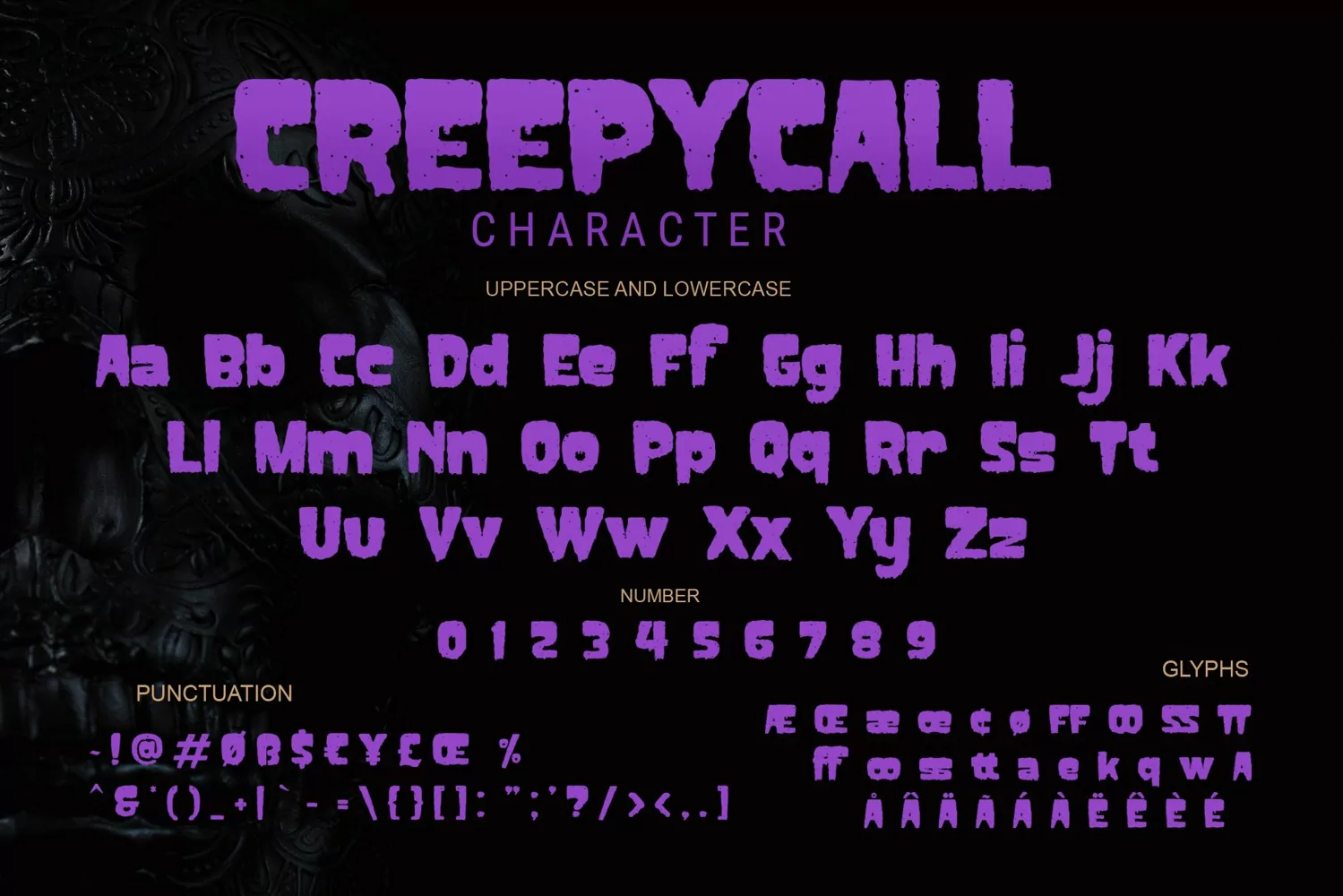
Creepycall
**Creepycall Font**
This pair was inspired by the vintage halloween poster design that i saw on some coffee shop, It was crafted by hand specially to add natural handmade feeling in its brand identity than i make it clean with pentool.
Creepycall font has 204 character set included
Schoutler Font is very good looking in logo, labels, scary logo, product packaging, halloween invitations, advertising and others.